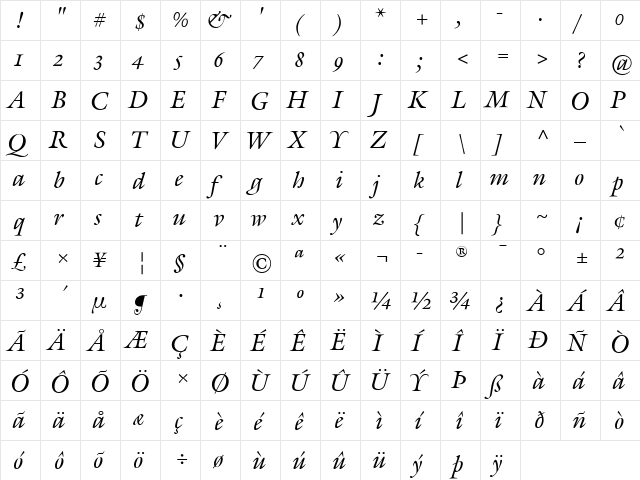
GalliardOStyCC Regular Font Preview
GalliardOStyCC Regular
Design Context for GalliardOStyCC Typeface
GalliardOStyCC is a composed and adaptable typeface that performs quietly and consistently across a wide range of design contexts.